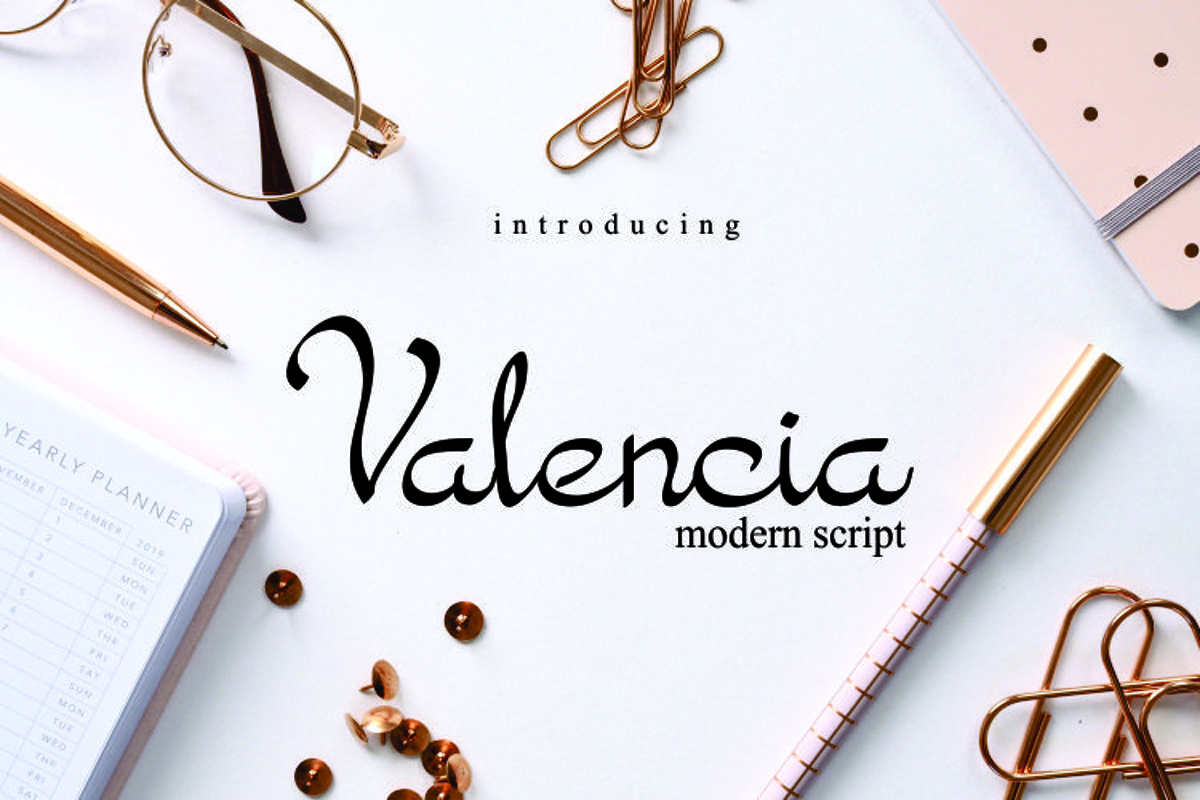
Valencia Script
Valencia is a stylish & modern script. This font
will looks awesome and amazing in many way to your latest project.
Valencia is perfect for many different
project such as logos & branding, invitation, stationery, wedding
designs, social media posts, advertisements, product packaging, product
designs, label, photography, watermark, special events or anything.
- Character set A-Z
- Character set a-z
- Support multilanguage glyphs